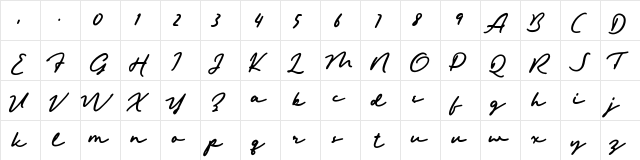
Hemisphers Script Regular
| Foundry | Runsell Studio |
| Designer | Satia Hayu P |
Design Context for Hemisphers Script Typeface
Hemisphers Script flows with the natural rhythm of handwritten lettering, making it ideal for designs that call for warmth and personal expression.
Font Pairing: Combine Hemisphers Script with a simple geometric sans for maximum contrast — the tension between flowing curves and clean structure is a classic typographic pairing.
Pro Tip: Pair Hemisphers Script with a clean sans-serif for supporting text. The contrast between fluid script and geometric structure creates an elegant typographic hierarchy.